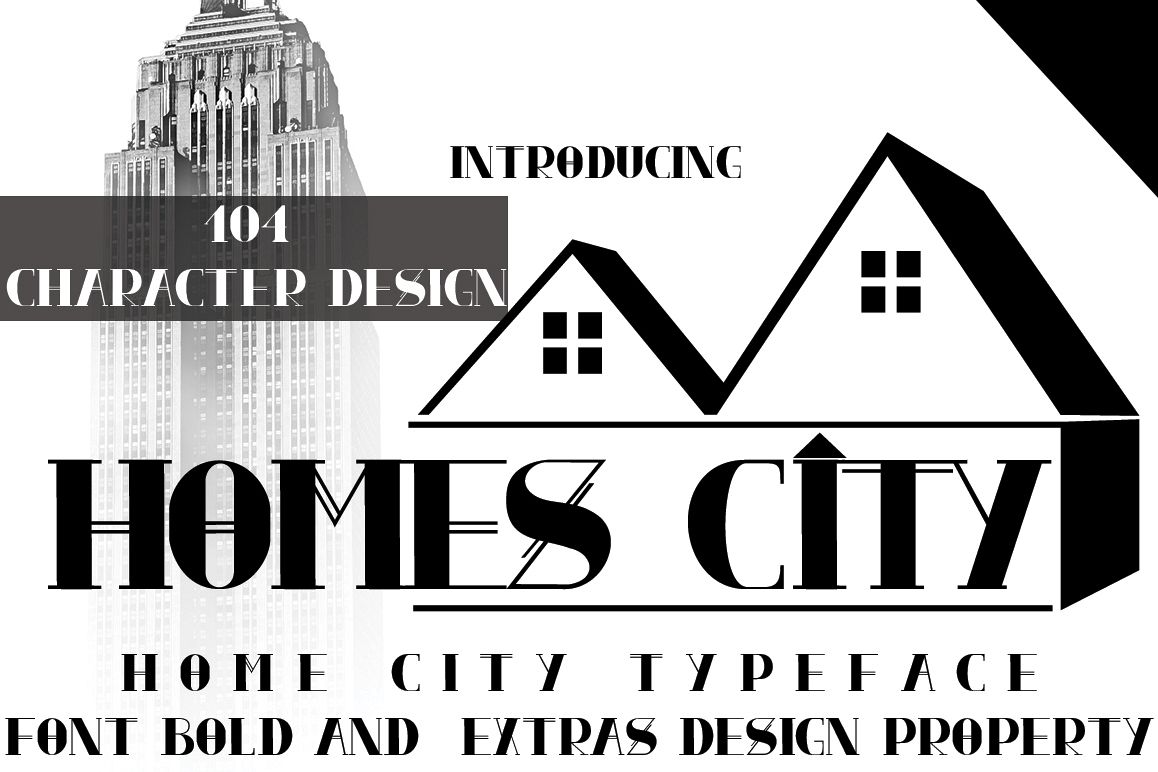
HOME CITY
HOME CITY This font was designed by handwriting and bonus extras design home detail elegant, and it has a modern
and unique forms of calligraphy bold, the writing style is very natural and multiple